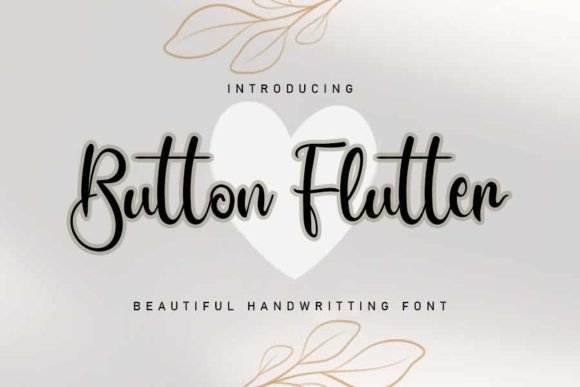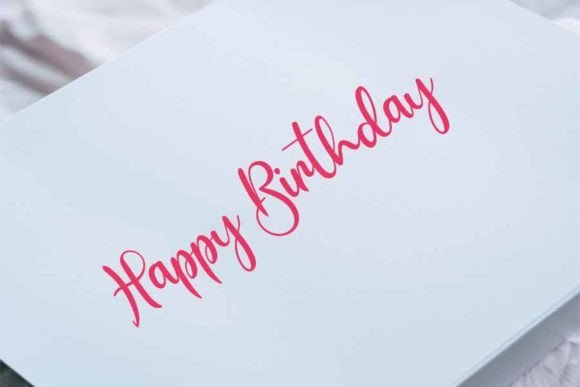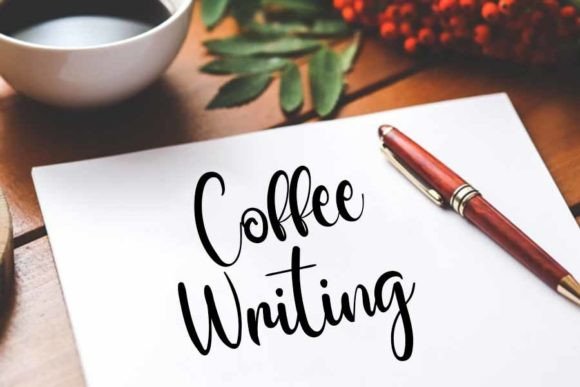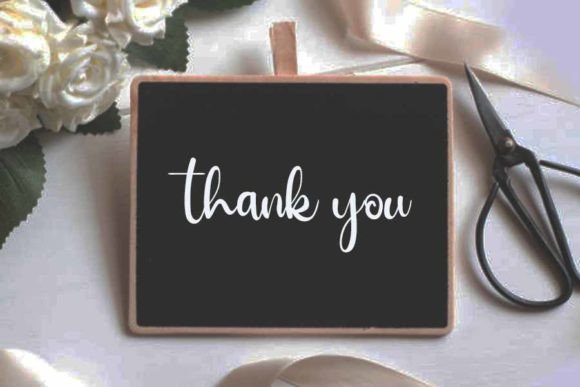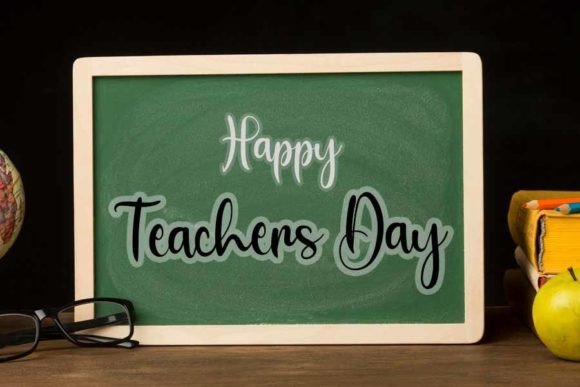
Button Flutter Font
About Button Flutter Font
Button Flutter Font Download brings a cheerful and approachable vibe to any project. This simple, friendly handwritten font is crafted to deliver warmth and personality with every letter. Whether you’re creating invitations, crafting social media graphics, or designing printable materials, Button Flutter helps your ideas shine with a natural, handwritten touch.
Its easygoing style, clean lines, and casual charm make it a go-to choice for both hobbyists and professionals. This font fits perfectly into a variety of design applications—from personal scrapbooks to business branding—without ever feeling out of place.
A Handwritten Look That Feels Personal
Button Flutter stands out for its simplicity and subtle playfulness. Each letter feels as if it were written by hand with care and sincerity. This gives your work a more human tone, which is ideal when you want your audience to feel a real connection.
It’s perfect for:
• Greeting cards for birthdays, holidays, and special events
• Craft projects and DIY printables
• Presentation slides that need a soft, personal flair
• Inspirational quotes on social media
• Planner pages, journaling, and scrapbooking
Its versatility is one of its biggest strengths—whether your project is playful or heartfelt, this font delivers.
Lightweight Yet Full of Charm
Despite its clean, unpretentious appearance, Button Flutter is full of charm. Its handwritten style offers a calm, welcoming tone that stands out without overpowering your layout. Whether used as a headline or body text, the font remains legible and friendly.
Use it as the primary font in a minimal design, or pair it with a bold serif or sans-serif font for added contrast. Either way, it adapts beautifully to your vision.
If you’re looking for a simple, handwritten typeface that brings friendliness and authenticity to your work, Button Flutter Font Download is the perfect solution. Its approachable nature and creative flexibility make it suitable for nearly every type of design project.